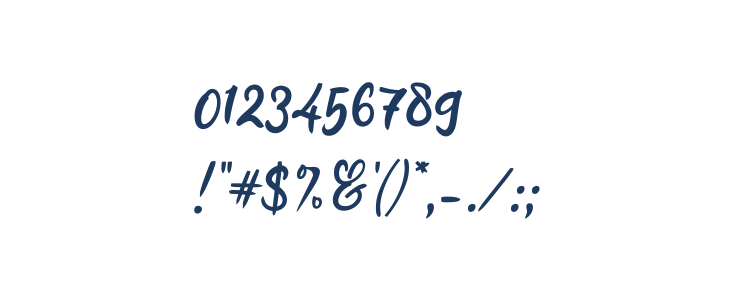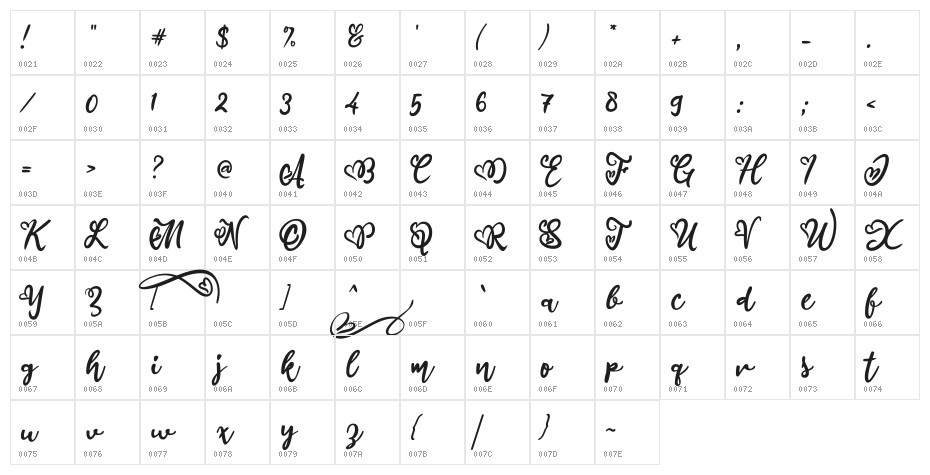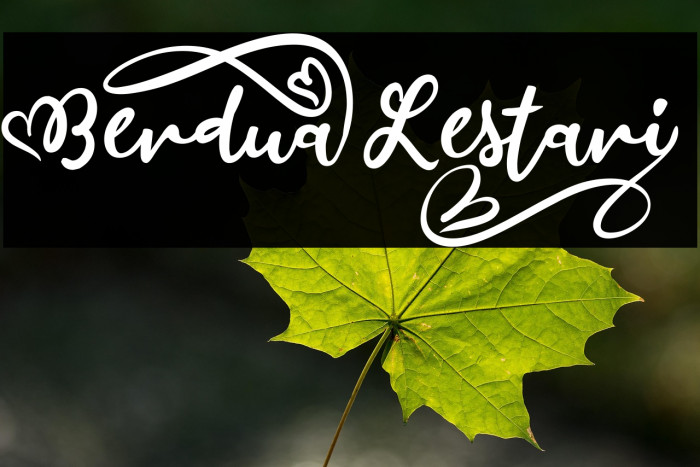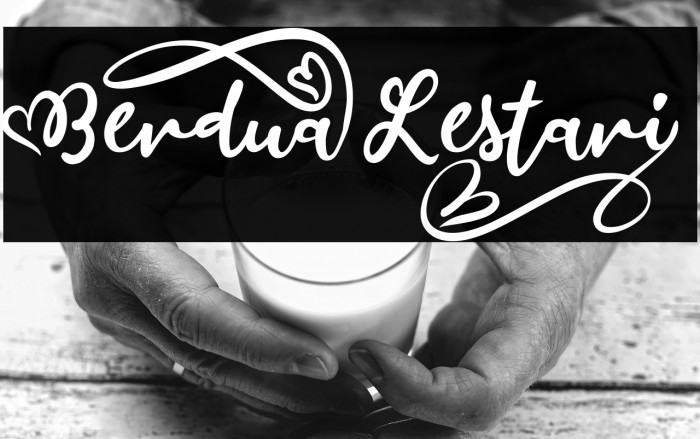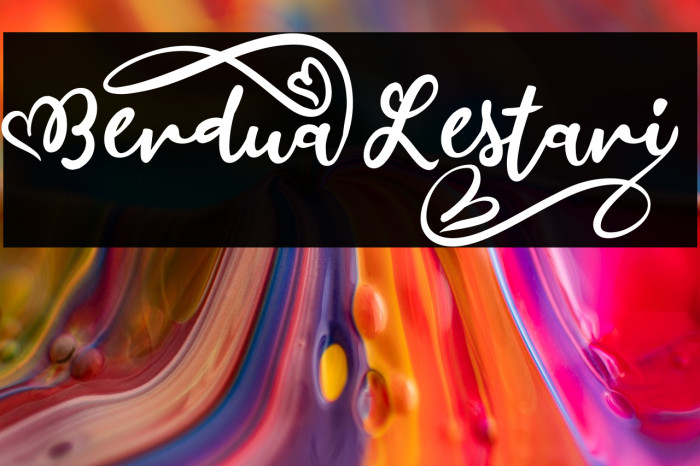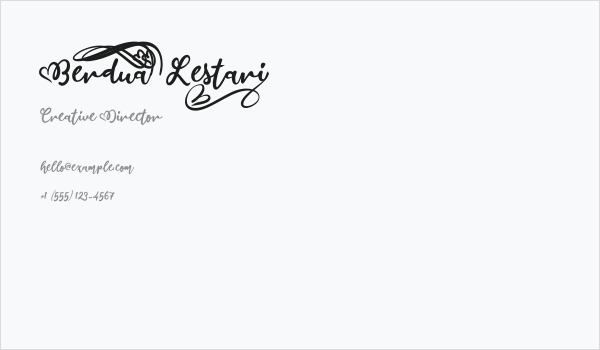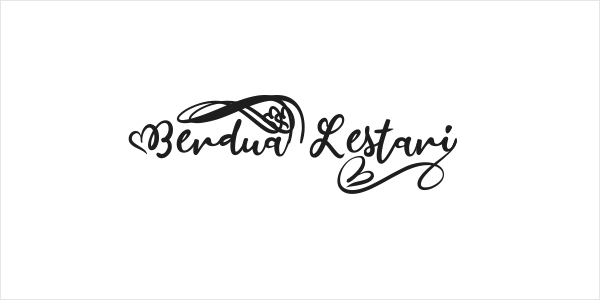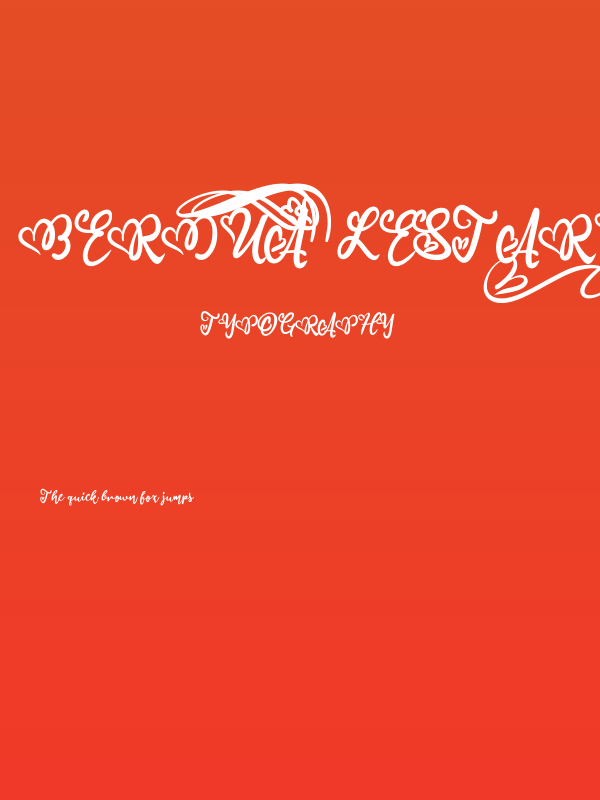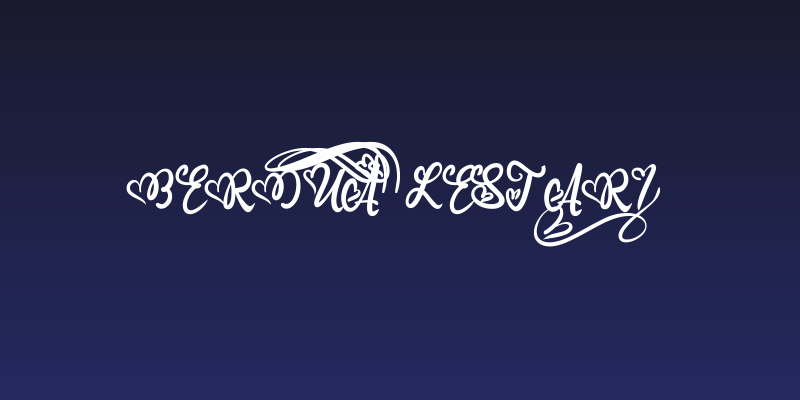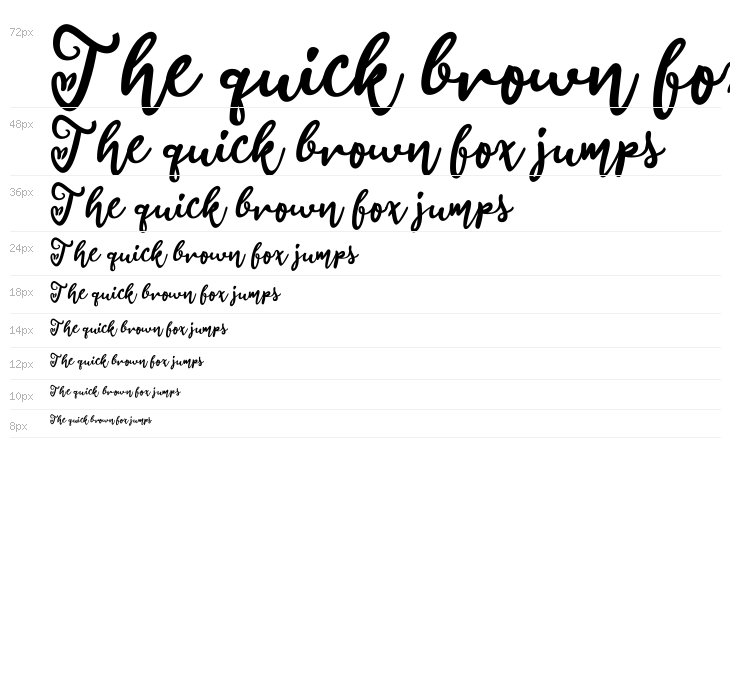
Berdua\Lestari_ Font
Berdua\Lestari_ Description
This font features a playful and romantic script style, characterized by its flowing, cursive letterforms. Each character is adorned with heart-shaped embellishments, adding a whimsical and affectionate touch. The uppercase letters are particularly ornate, with loops and swirls that enhance their decorative appeal. The lowercase letters maintain a consistent fluidity, making them ideal for creating a cohesive and elegant look. The numbers and special characters are designed to match the overall style, ensuring a harmonious appearance across all text elements. This font's unique design makes it perfect for projects that require a touch of romance and creativity.
| Use Case | Headlines, Invitations, Logos |
| Proposed Projects | Ideal for wedding invitations, greeting cards, love letters, and romantic branding. |